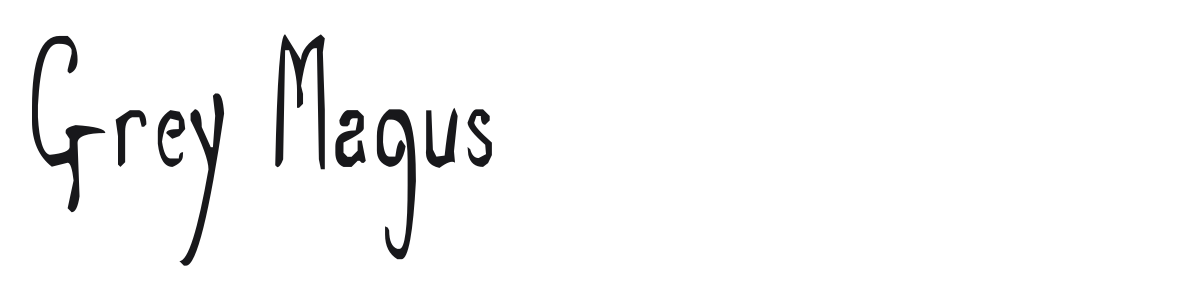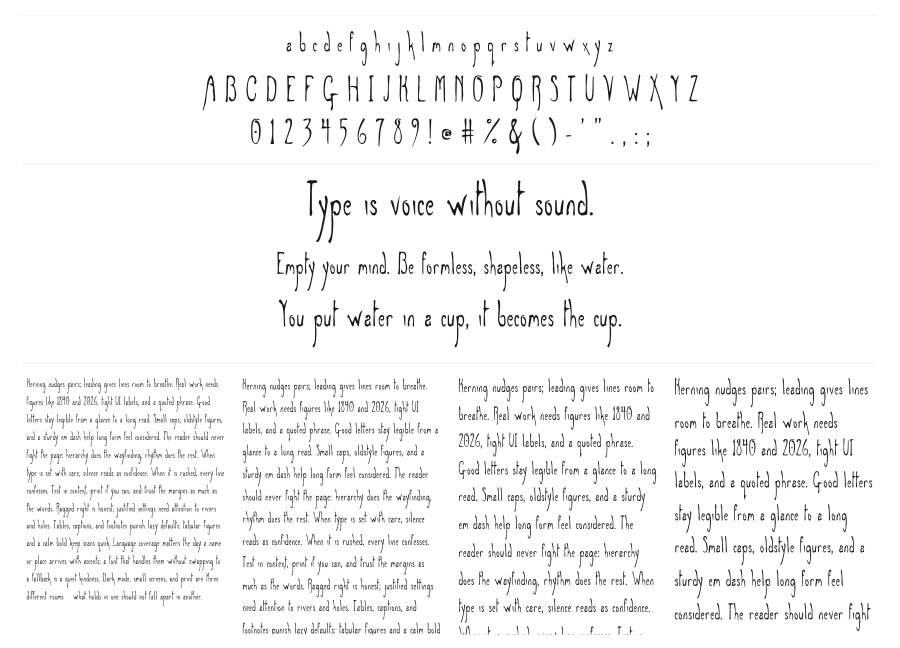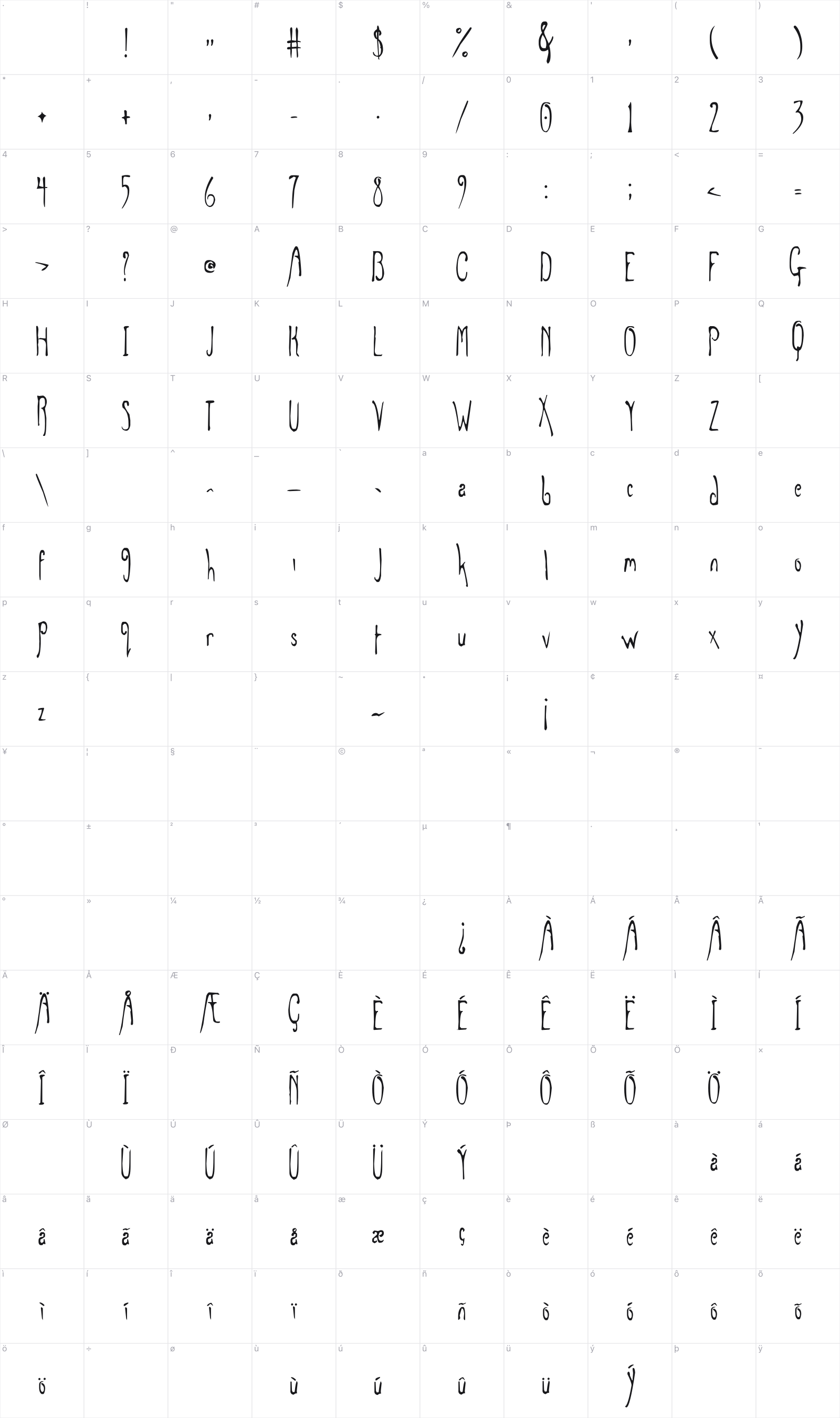
Grey Magus
Grey Magus is a tall, condensed upright handwriting font designed by Conna Stevenson, inspired by a fictional character's distinctive penmanship style. Its narrow letters crowd together with spindly strokes and pointed terminals that give it an unintended but welcome Art Nouveau quality. Best used at larger sizes where its eccentric, hand-drawn texture can breathe.